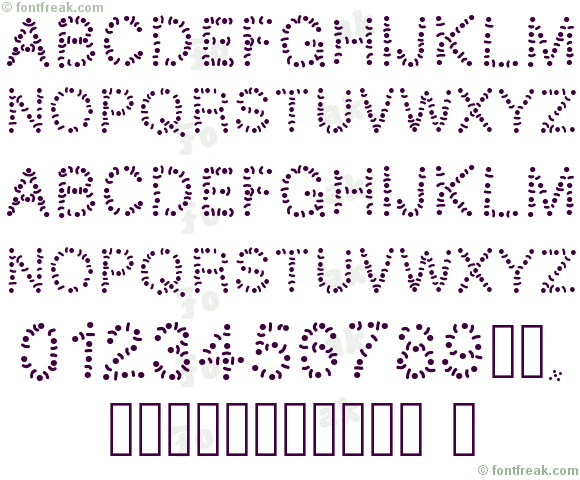
PWTribe
PWTribe by Peax Webdesign is a captivating display font that combines modern aesthetics with a touch of artistic flair. This unique typeface features a playful arrangement of dots and dashes, giving it a distinctive and engaging appearance. The stroke weight varies throughout the letters, creating a lively rhythm that captures attention without overwhelming the viewer. The overall spacing is well-balanced, allowing for legibility while maintaining a whimsical character. Ideal for creative projects, PWTribe stands out with its decorative elements that evoke a sense of fun and innovation.
This font is particularly well-suited for applications such as promotional materials for events, trendy restaurant menus, or eye-catching movie posters. Its distinctive style makes it perfect for branding initiatives aimed at young, dynamic audiences. Graphic designers will find it a valuable addition to their toolkit for creating unique visual experiences, while small business owners can leverage its charm to attract customers and elevate their marketing materials. Content creators will also appreciate the font's versatility, making it suitable for social media graphics, blog headers, and more.